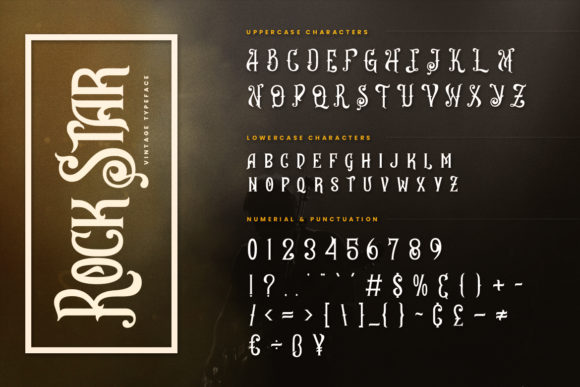
Rock Star Font
Rock Star is a unique and interesting serif font. It has beautiful and well balanced characters and as a result, it matches a wide pool of designs.